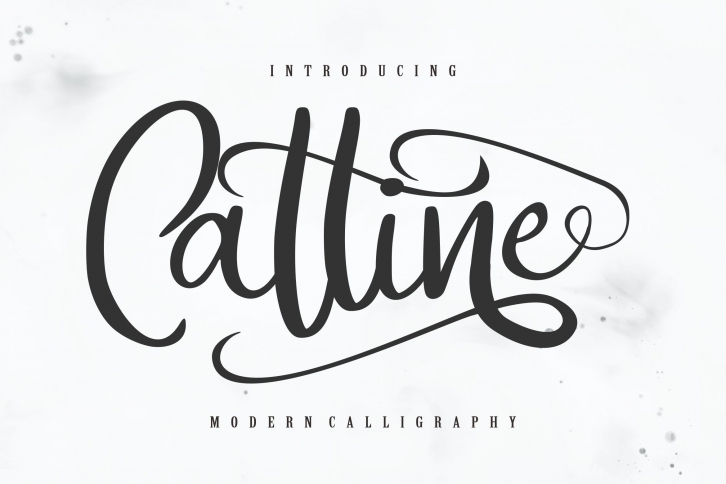
Catline | Modern Calligraphy Script FONT Download
Catline is a beautiful font that was designed by Vunira. It's a great choice for designers and creatives who need such a font. It was released on January 10, 2020 and the file size is 10.33 MB. Catline may give a more youthful, expressive and casual look to your project. It is a very beautiful, refined, elegant, and high-quality font.